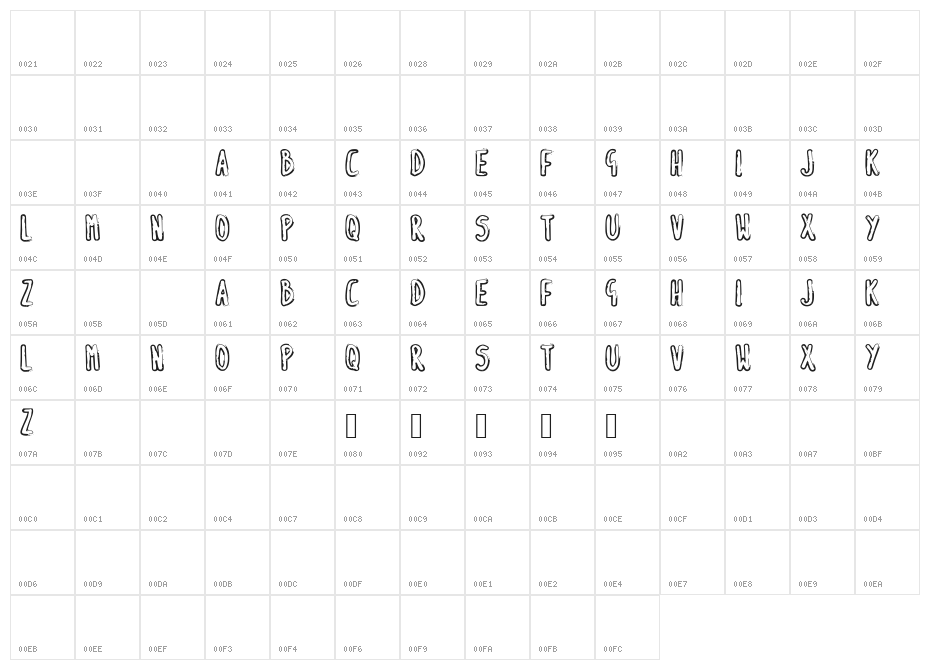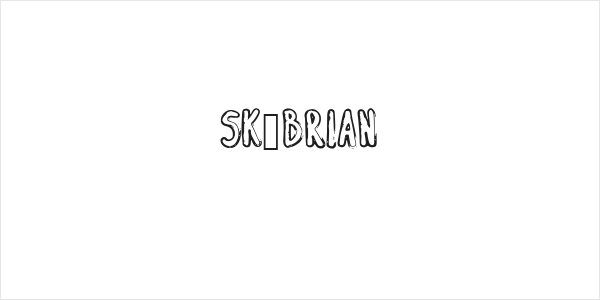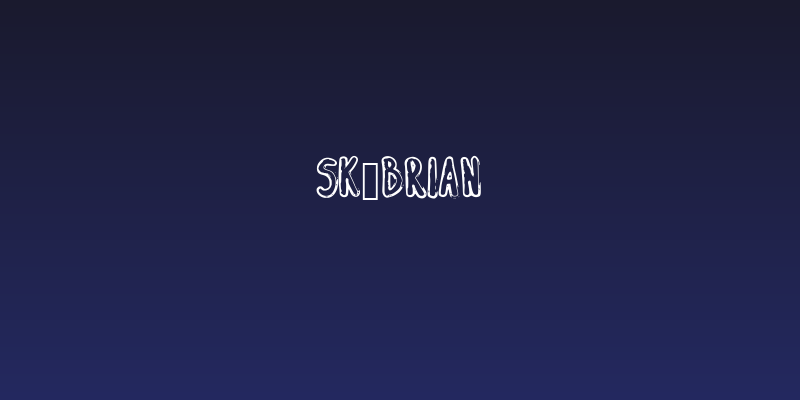
SK_BRIAN Font
SK_BRIAN Description
This playful and bold font features a hand-drawn, outlined style with a slightly rough texture, giving it a casual and artistic feel. The uppercase letters are consistent in height, with a slight variation in width, adding to its quirky charm. The strokes are thick and uniform, with a subtle irregularity that enhances its handcrafted appearance. The font's unique character is emphasized by the uneven edges and slight imperfections, making it ideal for creative and informal designs. Its distinct style is perfect for projects that require a touch of whimsy and individuality.
| Overall Style | Playful, Artistic |
| Proposed Projects | Ideal for posters, children's books, greeting cards, and creative branding projects. |